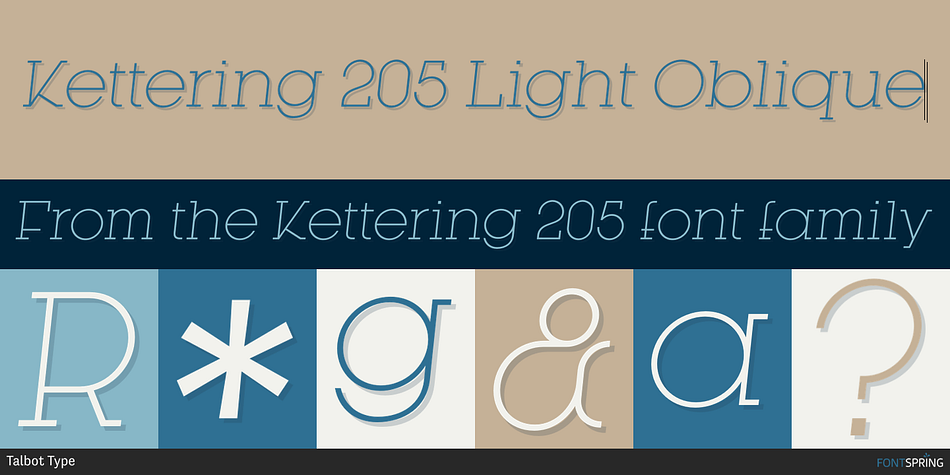
Kettering 205 Light Oblique
Kettering 205 is a serif and slab serif font family. This typeface has twelve styles and was published by Talbot Type.
Kettering 205 is a geometric slab-serif with Art Deco influences, such as lowered crossbars on many characters, a distinctive oblique crossbar on the lower case e, and a crossed W.
It’s a highly individual looking font but retains good legibility coupled with striking looks as a display font. The Kettering 205 family comprises of six weights and is closely related to Kettering 105, its more neutrally styled cousin.
Kettering 205 features both aligning and non-aligning (old style) numerals and includes an extended character set, to offer accented characters for Central European languages.